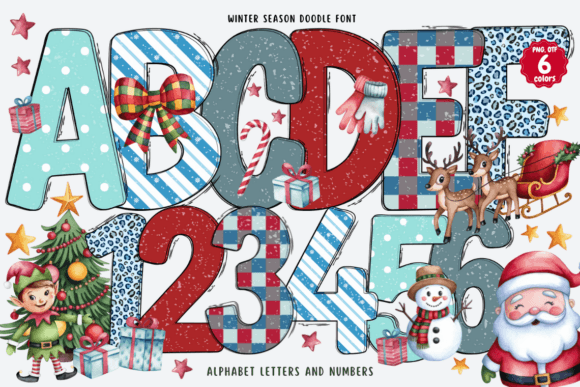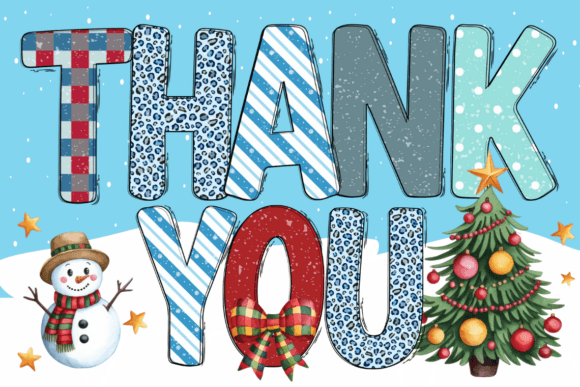
Winter Season Doodle Font
Winter Season Doodle Font brings the magic of winter to life with its whimsical, hand-drawn elements. This charming font features doodles inspired by snowflakes, mittens, cozy sweaters, and all the festive icons of the winter season. Perfect for holiday cards, school projects, posters, and seasonal decorations, it adds a playful, creative touch to your designs. Whether you’re working on winter-themed invitations, creative art, or graphic design, Winter Season Doodle Font will capture the cozy and festive spirit of the colder months.